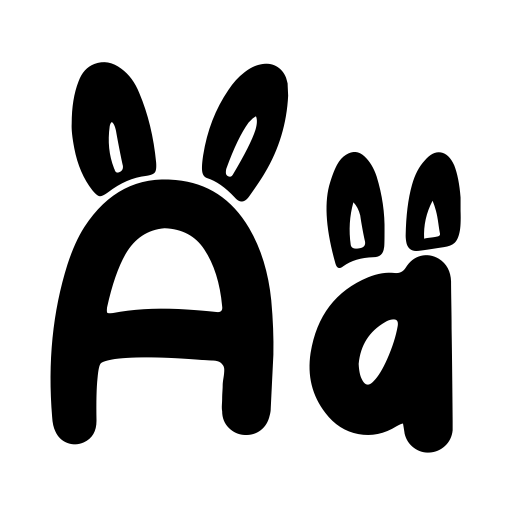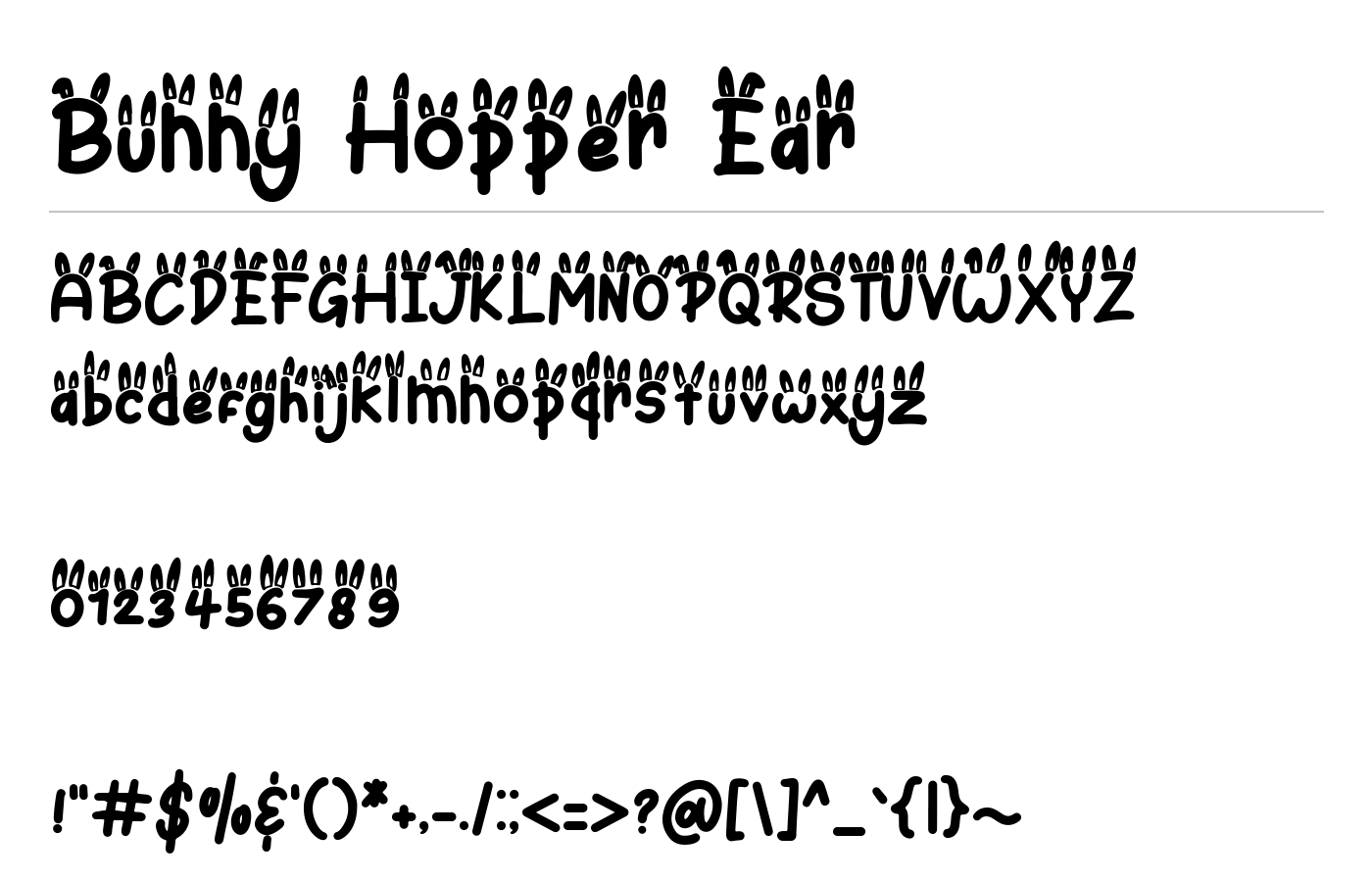
Bunny Hopper Ear is a playful and whimsical sans serif font characterized by its rounded, bold strokes and the distinctive bunny ear shapes sprouting from each letter. Its friendly, casual style with a moderate x-height makes it ideal for children's books, fun branding, and festive designs, adding a charming and lighthearted touch. This font works best in headlines and decorative uses where a joyful, approachable mood is desired.
Bunny Hopper Ear Font
About Bunny Hopper Ear Font
| Font family | Bunny Hopper Ear Font |
| Designer | Attype Studio |